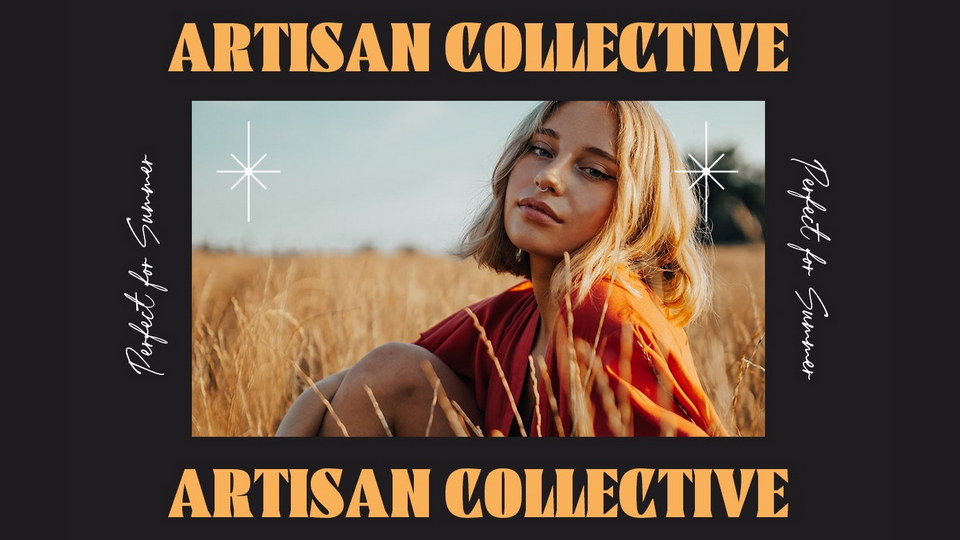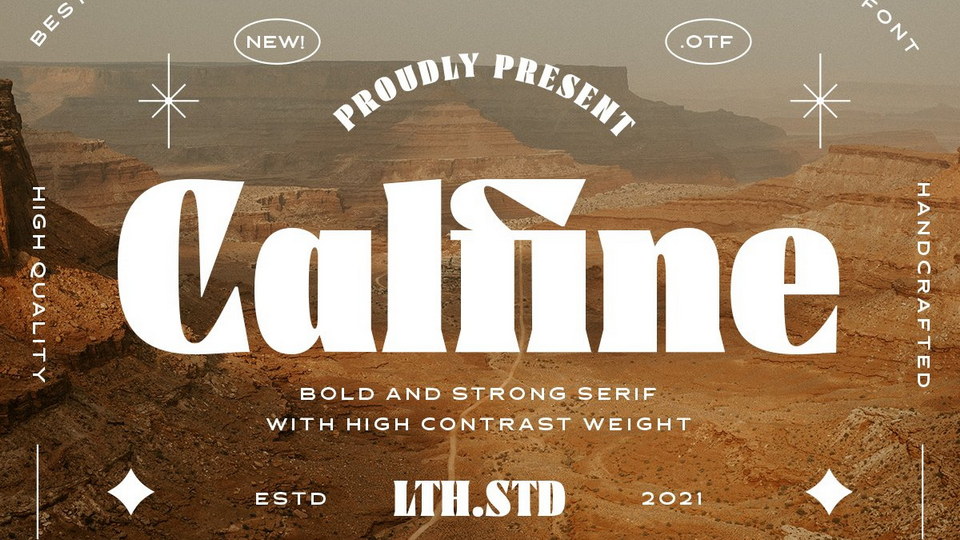
List Of Calfine Font References. Web introducing, calfine serif font, a bold and strong serif with high contrast weight.this font very suitable to be used as a title or display, make it looks great and. Calfine is a bold, cool, thick lettered serif font.
This is a bold serif font featuring classic glyphs developed in a modern and classy style. Web introducing calfine font.it’s a modern versatile vintage serif font, this is a strong and bold serif typeface that was created and shared by letter hend and it’s with. It looks lovely on a variety of designs requiring a personalized style, such as wedding invitations, thank you cards, weddings, greeting cards, logos and so on.
Introducing, Calfine Serif Font, A Bold And Strong Serif With High Contrast Weight.
It Looks Lovely On A Variety Of Designs Requiring A Personalized Style, Such As Wedding Invitations, Thank You Cards,.
Web introducing, calfine, a bold and strong serif with high contrast weight. Calfine is a bold, cool, thick lettered serif font. Lisensi font ini adalah personal use.
Calfine Is A Bold, Cool, Thick Lettered Serif Font.
Web Introducing, Calfine, A Bold And Strong Serif With High Contrast Weight.